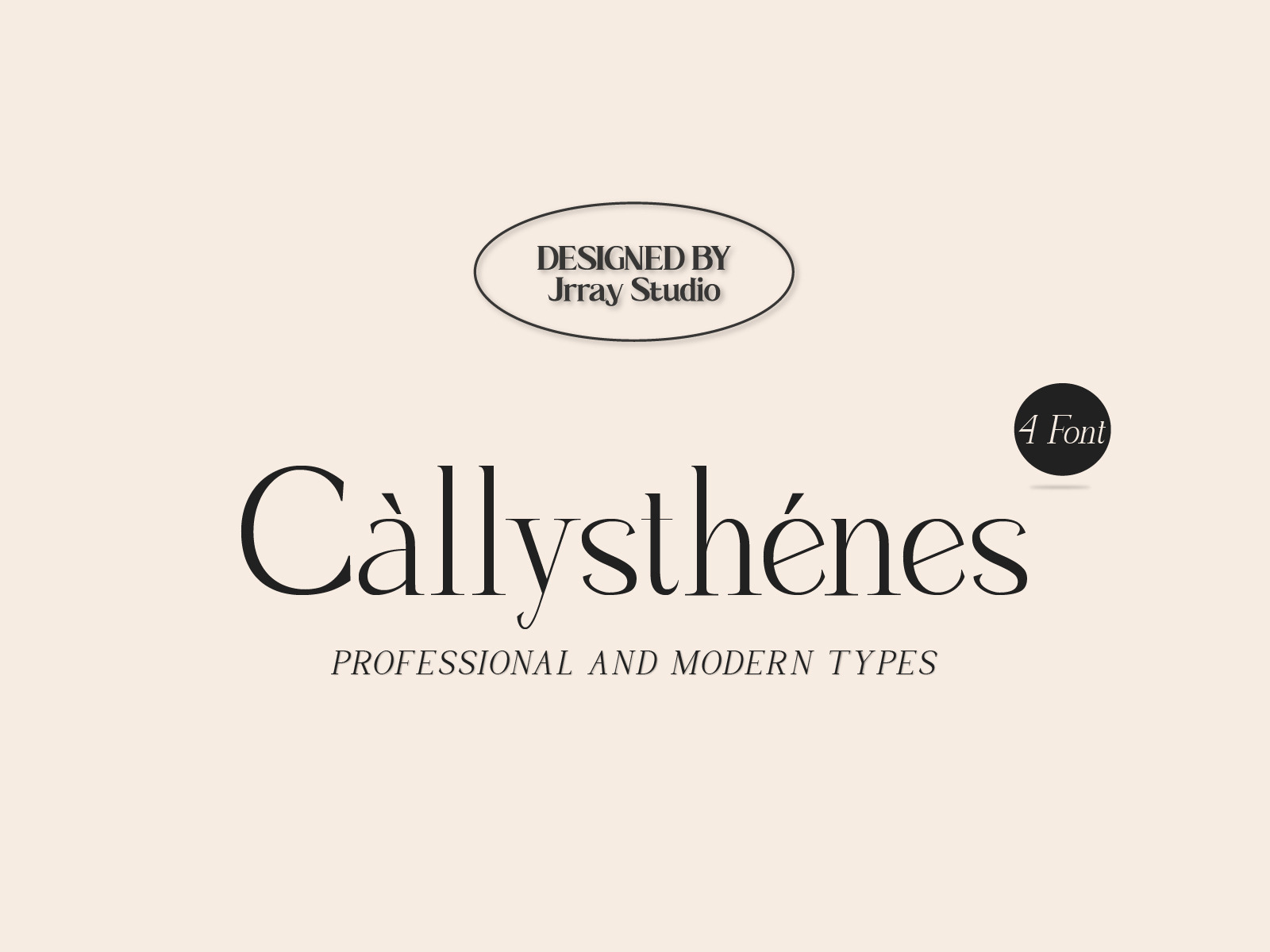
Callysthenes Serif Font
Let's Introducing a Callysthenes Font Professional and modern typeface to makes your appearance look fresh, elegant and stylish. This font is perfect for creative projects such as Logotypes, Cards, Apparel, Printed Product, Invitations, Product Packaging, Letterhead, Magazine, Book, etc.
The word of Callysthenes is from Callisthenes a Geek Hitorian in Macedon with connections to both Aristotle and Alexander the Great.